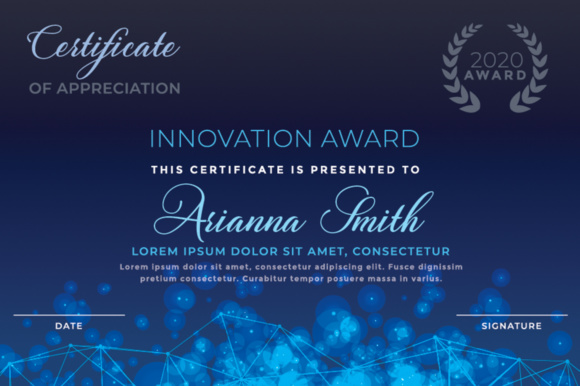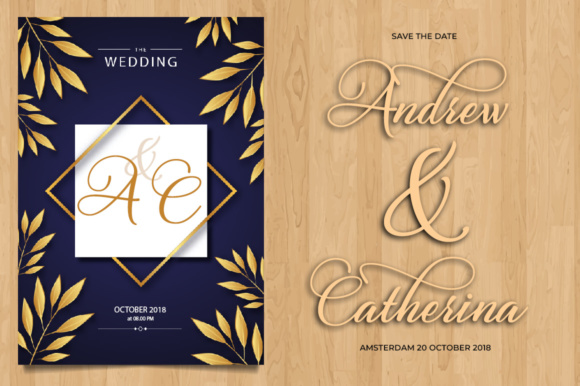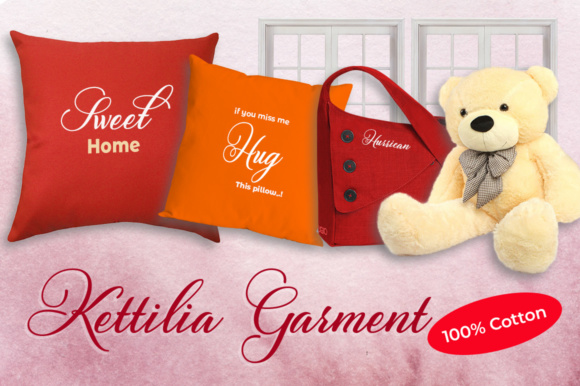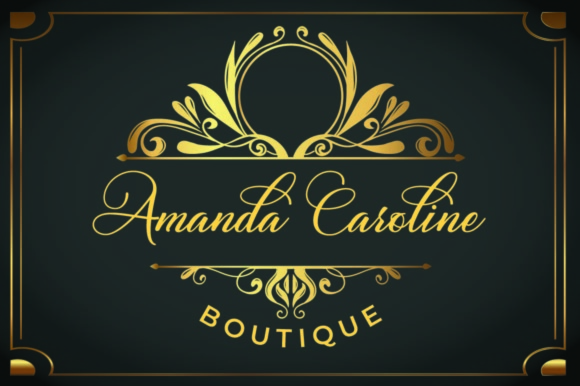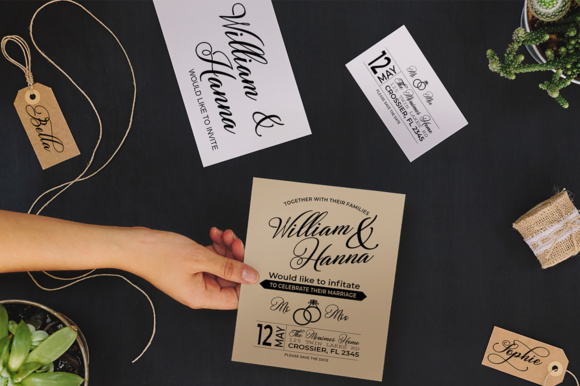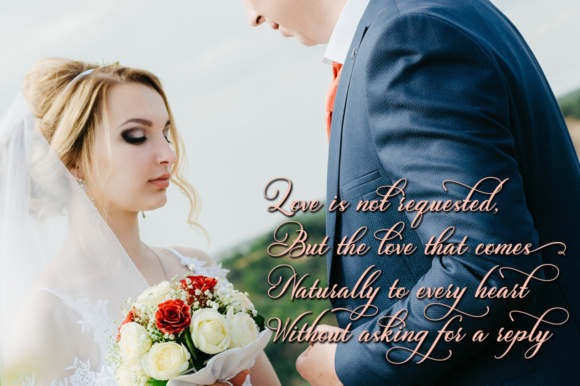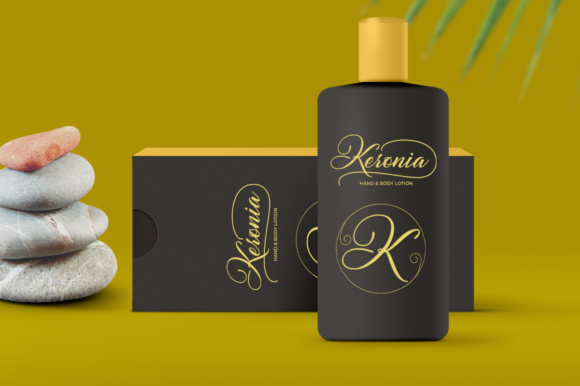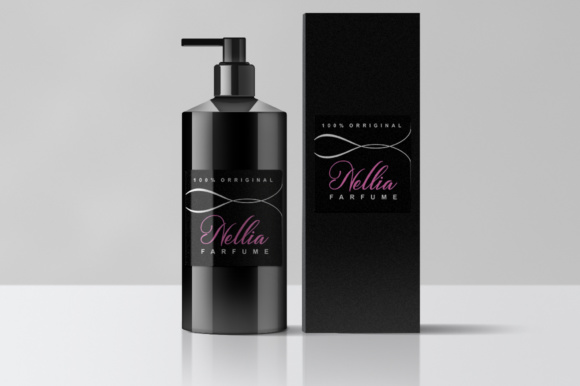
Kattelyna Script Font
About Kattelyna Script Font
The Kattelyna is a formal script font with an elegant feel. It’s ideal for wedding invitations, magazines, social media, restaurant menus, greeting cards, birthday invitations, headers and much more.